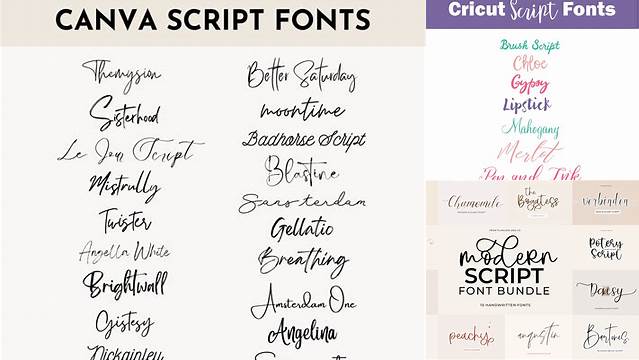
Best Canva Script Fonts For Cricut: Top Picks For Crafters
Are you looking for the best Canva script fonts for Cricut? Well, you've come to the right place! Choosing the perfect font can be tricky, especially when you're working on a Cricut project. You want something that looks beautiful but also cuts cleanly. And with so many options available in Canva, it can feel overwhelming. That's why we’ve put together this guide to help you find the perfect script fonts for your next project. We'll dive deep into some fantastic fonts that not only look stunning but also work seamlessly with your Cricut machine. So, let's get started and explore the wonderful world of Canva fonts!
Why Choose Script Fonts for Cricut?
Script fonts, with their elegant and flowing strokes, add a touch of sophistication and personality to any project. Whether you're creating personalized gifts, home décor, or even business materials, the right script font can make all the difference. Script fonts mimic the fluidity of handwriting, making them ideal for projects that require a personal and heartfelt touch. Think about wedding invitations, custom labels, or inspirational wall art – script fonts can elevate these creations from simple to spectacular. But why are script fonts so popular for Cricut projects specifically? The answer lies in their versatility and aesthetic appeal. They can be used in a wide range of applications, from monograms and quotes to entire paragraphs of text. They’re perfect for adding a handmade feel to your crafts, making your projects stand out with a unique and professional touch. Plus, the variety of script fonts available means you can always find one that perfectly matches your project’s theme and style. From formal and classic scripts to playful and modern ones, the options are endless.
When choosing script fonts for Cricut, it’s essential to consider not just the look, but also the functionality. Some script fonts, while beautiful, may have very thin lines or intricate details that can be challenging for a cutting machine like the Cricut to handle. This can result in jagged edges or incomplete cuts, which can be frustrating and time-consuming to fix. Therefore, it’s crucial to select fonts that are not only visually appealing but also Cricut-friendly. Look for fonts with clean, smooth lines and sufficient thickness to ensure a clean and easy cut. We'll be highlighting some fonts that strike this perfect balance, offering both beauty and practicality for your crafting needs. So, stay tuned as we delve into the best Canva script fonts that will make your Cricut projects shine.
Top Canva Script Fonts for Cricut
Now, let's get to the good stuff! We've compiled a list of some of the best Canva script fonts for Cricut that are sure to make your projects pop. These fonts have been chosen not only for their beautiful aesthetics but also for their compatibility with Cricut machines. This means they cut cleanly and easily, saving you time and frustration. Each font has its own unique personality, so you can find the perfect match for any project you have in mind. We'll cover a range of styles, from elegant and formal to whimsical and fun, ensuring there's something for everyone. So, let’s dive in and explore these fantastic fonts!
1. Brightside Script
Brightside Script is a fantastic choice for anyone looking for a modern and elegant script font. This font is characterized by its clean lines and flowing curves, making it highly readable while still maintaining a stylish appearance. The letters are well-spaced, which helps to prevent them from blending together when cut with a Cricut machine. This is a crucial factor to consider, as fonts with tight kerning can be difficult to cut cleanly. Brightside Script’s balance between simplicity and elegance makes it incredibly versatile. It’s suitable for a wide range of projects, from wedding invitations and greeting cards to personalized gifts and home décor. Imagine using Brightside Script to create custom labels for your kitchen jars, or perhaps to add a personal touch to a handmade card. The possibilities are endless!
One of the key reasons why Brightside Script works so well with Cricut is its smooth, consistent lines. These lines ensure that the Cricut blade can follow the font’s curves without any issues, resulting in a crisp and clean cut. This is especially important for projects that require intricate details, as a font with jagged or uneven lines can ruin the final product. Furthermore, Brightside Script has a decent thickness, which adds to its cut-ability. Thin, delicate fonts can sometimes be problematic for Cricut machines, as they may not cut cleanly or may even tear during the cutting process. Brightside Script, on the other hand, strikes the perfect balance between elegance and practicality. Its readability is another major advantage. While some script fonts can be challenging to read, especially at smaller sizes, Brightside Script remains clear and legible. This makes it an excellent choice for projects that require text to be easily read, such as signage or labels. Overall, Brightside Script is a reliable and beautiful font that is sure to enhance any Cricut project. Its modern, elegant style, combined with its excellent cut-ability, makes it a top pick for crafters of all skill levels.
2. Hello Script
Hello Script is another excellent option for Cricut enthusiasts seeking a charming and playful script font. This font exudes a friendly and approachable vibe, making it perfect for projects that aim to convey warmth and personality. Hello Script features a slightly whimsical design with rounded edges and a bouncy baseline, giving it a cheerful and informal feel. This makes it particularly well-suited for projects such as children’s birthday cards, nursery décor, or personalized gifts for friends and family. Imagine using Hello Script to create a fun and inviting welcome sign for your front door, or to add a touch of playfulness to a scrapbook page. The font’s lighthearted nature can bring a smile to anyone’s face.
From a technical standpoint, Hello Script is also well-suited for cutting with a Cricut machine. Its clean lines and moderate thickness ensure that the blade can move smoothly, resulting in precise cuts. The spacing between letters is also well-balanced, which helps to prevent overcrowding and makes the font easy to read. This is especially important when working on smaller projects or detailed designs. One of the standout features of Hello Script is its versatility. While it shines in playful and informal settings, it can also be used in more sophisticated designs. For example, you could pair Hello Script with a more formal sans-serif font to create a visually appealing contrast. This combination can be particularly effective for wedding invitations or branding materials. Furthermore, Hello Script is incredibly user-friendly. Whether you’re a beginner or an experienced crafter, you’ll find this font easy to work with. Its simplicity and clarity make it a great choice for a wide range of projects. In summary, Hello Script is a delightful and practical font that is sure to become a staple in your Cricut font collection. Its playful charm, combined with its excellent cut-ability, makes it a top contender for anyone looking to add a touch of whimsy to their creations.
3. Lemon Jelly Script
Lemon Jelly Script is a delightful and modern script font that brings a touch of sweetness to any project. Its elegant and flowing curves give it a sophisticated yet playful feel, making it an ideal choice for a wide range of applications. This font is particularly well-suited for projects that require a touch of personality and charm, such as greeting cards, invitations, and custom artwork. Imagine using Lemon Jelly Script to create beautifully personalized wedding invitations or to add a whimsical touch to your scrapbook layouts. The font’s unique character can truly elevate your creations and make them stand out.
From a Cricut perspective, Lemon Jelly Script is a fantastic option due to its clean lines and moderate thickness. These characteristics ensure that the font cuts smoothly and cleanly, without any jagged edges or imperfections. This is crucial for achieving professional-looking results, especially when working on intricate designs. The spacing between letters is also thoughtfully designed, preventing them from overlapping or appearing cramped. This contributes to the font’s overall readability and makes it easy to work with in various sizes. One of the standout features of Lemon Jelly Script is its versatility. It can be used in a variety of contexts, from formal events to casual projects. Its elegant curves make it suitable for upscale invitations and announcements, while its playful nature makes it perfect for children’s crafts and whimsical designs. This versatility means that Lemon Jelly Script can be a valuable addition to your font library, saving you time and effort in finding the perfect font for each project. Moreover, Lemon Jelly Script pairs well with a wide range of other fonts, including both serif and sans-serif styles. This makes it easy to create visually appealing designs that combine different typography elements. For example, you could pair Lemon Jelly Script with a clean sans-serif font for a modern and balanced look, or with a classic serif font for a more traditional feel. In conclusion, Lemon Jelly Script is a charming and practical font that offers both style and functionality. Its elegant curves, clean lines, and versatility make it a top choice for Cricut users looking to add a touch of sweetness to their projects. Whether you’re creating invitations, artwork, or personalized gifts, Lemon Jelly Script is sure to impress.
Tips for Using Script Fonts with Cricut
Working with script fonts on your Cricut can be incredibly rewarding, but it also requires a bit of know-how to get the best results. Script fonts, with their delicate lines and intricate details, can sometimes be challenging to cut cleanly. However, with the right techniques and a little practice, you can achieve stunning results every time. Here are some essential tips to help you master the art of using script fonts with your Cricut.
1. Choose the Right Material
The material you choose can significantly impact the outcome of your project, especially when working with script fonts. Thicker, more robust materials like cardstock or vinyl tend to work best, as they provide a stable base for the intricate cuts. Flimsy materials, on the other hand, can tear or wrinkle during the cutting process, resulting in a less-than-perfect finish. When using vinyl, make sure to select a high-quality brand that is specifically designed for crafting. This will ensure that the vinyl adheres well to your project surface and that the fine details of your script font are preserved. For paper projects, opt for a medium to heavyweight cardstock. This will provide the necessary support for the delicate cuts and prevent the paper from tearing. Experimenting with different materials is always a good idea, as each material will interact with the font in a unique way. You might find that certain materials enhance the font’s elegance, while others give it a more rustic or textured look. By understanding how different materials affect your script fonts, you can make informed choices that will elevate your projects to the next level.
2. Weld Your Letters
One of the most crucial steps when working with script fonts on Cricut is welding your letters. Welding combines the individual letters of a word into a single, continuous shape, preventing the Cricut from cutting each letter separately. This is essential for script fonts, as the letters are designed to connect seamlessly, mimicking the flow of handwriting. If you don't weld your letters, the Cricut will cut each letter individually, resulting in a disjointed and unprofessional look. Welding is a simple process in Cricut Design Space. After typing your text, select the font you want to use, and then adjust the letter spacing as needed. Once you’re happy with the spacing, select the entire text and click the “Weld” button in the bottom right corner of the screen. This will merge the letters into a single shape, ready for cutting. Keep in mind that welding is a permanent action in Cricut Design Space. Once you’ve welded your letters, you can’t undo the process. Therefore, it’s essential to ensure that your text is exactly as you want it before welding. If you need to make changes after welding, you’ll have to start over. However, the extra effort is well worth it, as welding is the key to achieving a smooth and professional finish with script fonts. By welding your letters, you’ll ensure that your script font looks its best and that your Cricut projects have a polished and cohesive appearance.
3. Use a Sharp Blade
Using a sharp blade is paramount when working with script fonts, especially those with intricate details and delicate lines. A dull blade can snag and tear the material, resulting in jagged edges and a messy finish. A sharp blade, on the other hand, will glide smoothly through the material, creating clean and precise cuts. This is particularly important for script fonts, where even the smallest imperfections can be noticeable. Regularly replacing your Cricut blade is a simple yet effective way to ensure that you’re always working with a sharp tool. The frequency with which you need to replace your blade will depend on the type of material you’re cutting and the amount of use it gets. However, as a general rule, it’s a good idea to replace your blade every few projects or whenever you notice a decline in cutting performance. Additionally, consider using a premium fine-point blade for intricate projects. These blades are designed specifically for detailed cuts and will provide the best possible results with script fonts. Before starting a large project, it’s always wise to do a test cut with your chosen font and material. This will allow you to assess the blade’s sharpness and make any necessary adjustments before committing to the entire project. By using a sharp blade, you’ll minimize the risk of tearing and snagging, ensuring that your script fonts cut cleanly and beautifully. This simple step can make a world of difference in the quality of your finished projects.
Choosing the best Canva script fonts for Cricut doesn't have to be a daunting task. With a little knowledge and the right fonts, you can create stunning projects that showcase your unique style. We've explored some fantastic font options, discussed why script fonts are so popular, and provided essential tips for using them effectively with your Cricut machine. Remember, the key is to choose fonts that not only look beautiful but also cut cleanly and easily. Experiment with different fonts and materials to find the perfect combination for your projects. Whether you’re creating personalized gifts, home décor, or business materials, the right script font can add a touch of elegance and sophistication. So go ahead, unleash your creativity and let these beautiful fonts inspire your next masterpiece! Happy crafting, guys!